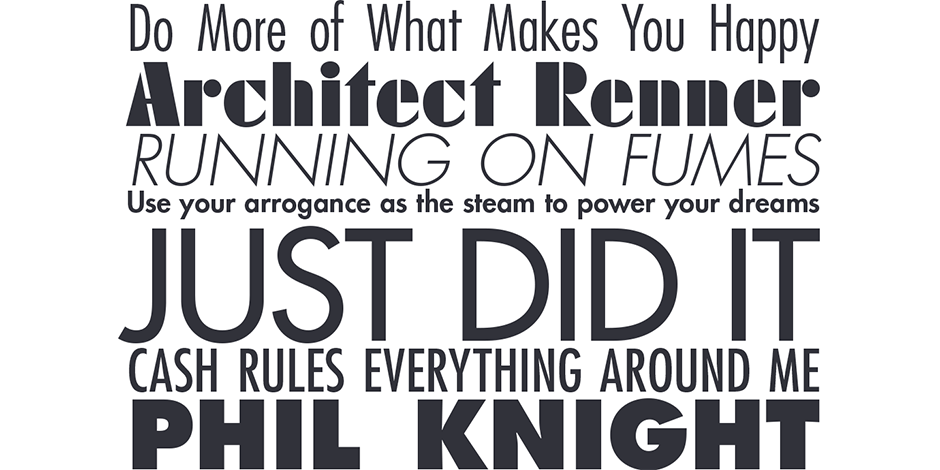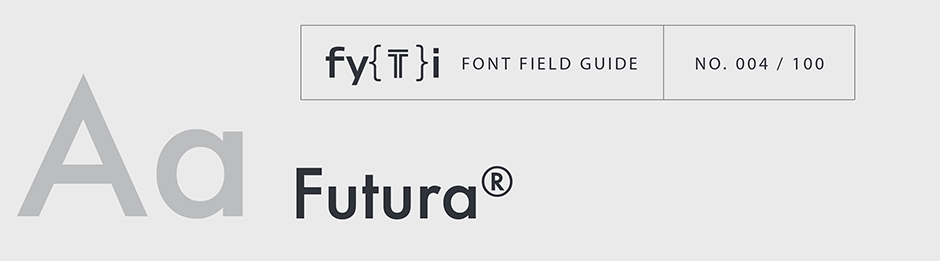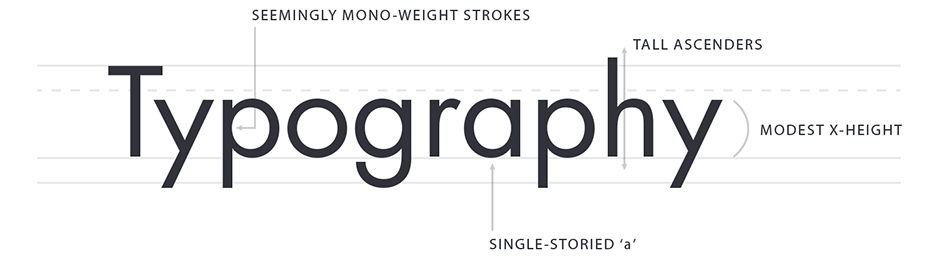
Futura® Font Field Guide
FOUNDRY: Linotype, DESIGNERS: Paul Renner and Bauer type designers & CLASSIFICATION: Sans Serif and Geometric Sans
Best Practices
An exceptionally versatile family, the Futura Bold and Condensed designs are powerful display typefaces. The Futura family is also a good choice for space-sensitive environments. Its simple letterforms allow it to be set at surprisingly small sizes with little drop in legibility. While the design works well for short blocks of text copy, captions and pull-quotes, it is not the best choice for lengthy text blocks.
FAMILY
Six weights of regular proportions and four of condensed, each with matching italics in addition to a “Display” and “Black” design specifically for headlines.
Font Facts
• Many assume that Futura was developed at the Bauhaus. The reality is, however, that Paul Renner had no Bauhaus affiliation.
• The design was rarely used by Bauhaus designers.
• The forms of Futura’s capital letters can be traced back to ancient Greek lapidary letters.
Roots
Paul Renner’s original 1927 drawings, which served as the basis for the Futura design, embodied the ideologies of the Bauhaus movement. The capital letters were patterned after Roman character shapes while the lowercase was a design experiment that took the “form follows function” philosophy to extremes. The end result was a set of glyphs that may have reflected Bauhaus teaching, but were typographically virtually useless.
Renner submitted his new design to the Bauer Typefoundry of Frankfurt, which accepted the work under the condition that its staff designers could make modifications. While Bauer’s designers left Renner’s caps relatively untouched, they reworked most of the lowercase. In doing so, they melded Renner’s philosophy with proven typeface design precepts.
Legibility
Except for the potentially confusing design of the a, j and l, the characters of the Futura family are quite legible. Its relatively small x-height and monotone strokes, however, hamper readability in continuous text.
How To Spot Futura